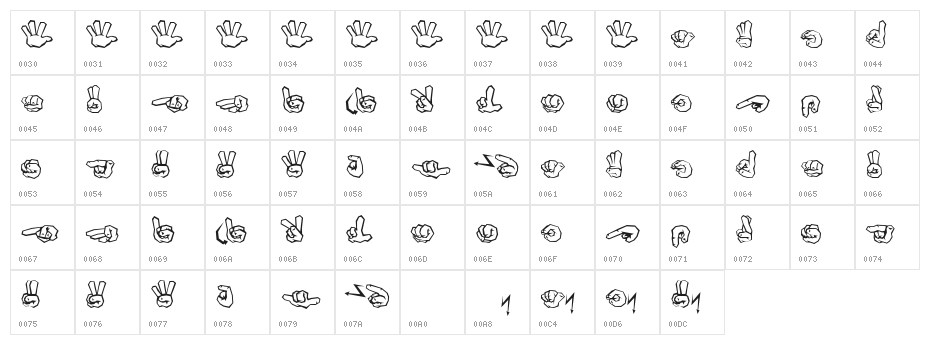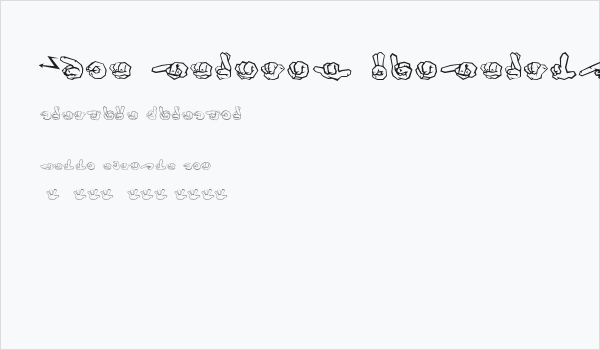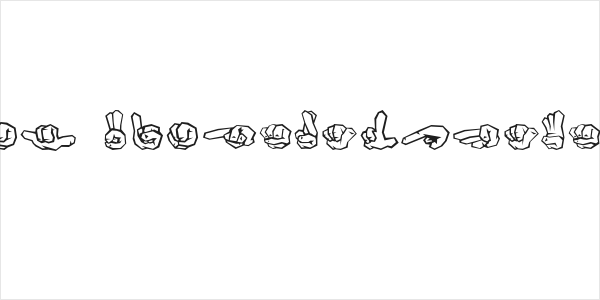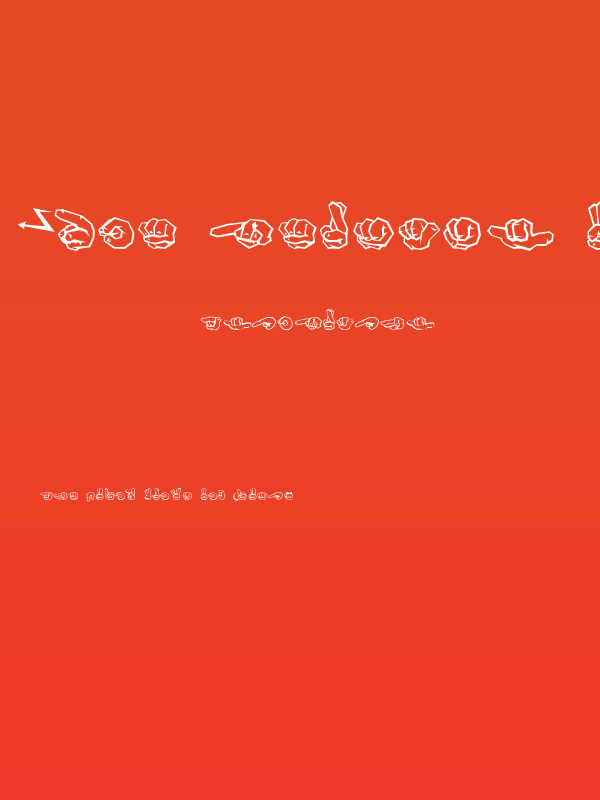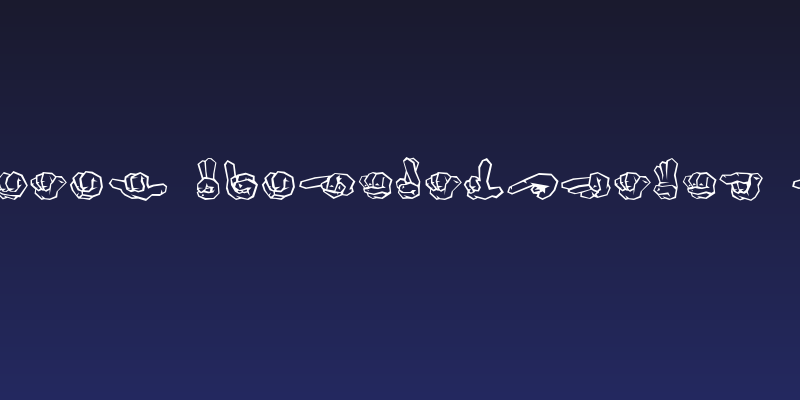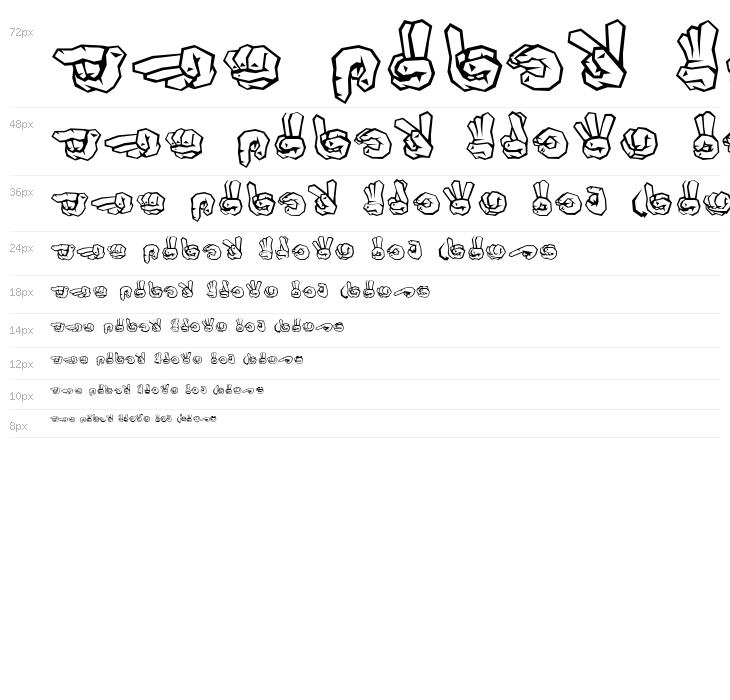
ZOE GERMANY Fingeralphabet Graffiti Font
ZOE GERMANY Fingeralphabet Graffiti Description
This font is a unique representation of the alphabet through hand gestures, resembling a graffiti style. Each letter and number is depicted using a distinct hand sign, characterized by bold outlines and a playful, artistic flair. The style is reminiscent of street art, with a dynamic and expressive quality that captures attention. The special characters are also creatively represented, maintaining the overall theme. This font is visually striking and offers a fresh take on traditional typography, making it ideal for projects that require a bold and unconventional aesthetic.
| Use Case | Logos, Posters, Educational Materials |
| Proposed Projects | Ideal for street art projects, urban-themed designs, educational materials on sign language, or creative branding. |